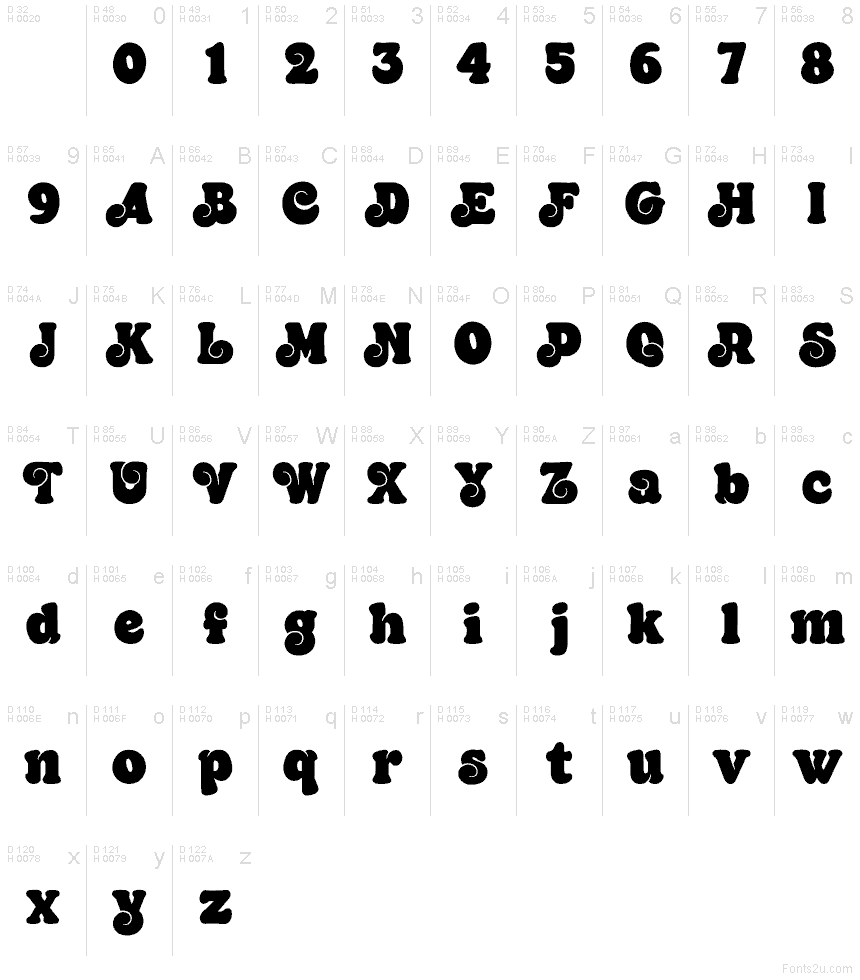
Chunky Beard DEMO
Chunky Beard font by Ikiiko Type is a bold display typeface with a retro style. Whimsical, vintage-inspired, and highlighted by rounded forms, it has a bold personality that marks every word typed in it. Use this free retro font to showcase and expose your fun, colorful projects in an inspired outfit of letters.
Appealing font use cases include posters, flyers, magazines, book covers, album covers, video game titles, comic books and comics related content in general and more. A bit unconventional but still suitable cases include classroom posters and slideshows for students or teenagers. There’s no exception to restaurant menus styling as well!